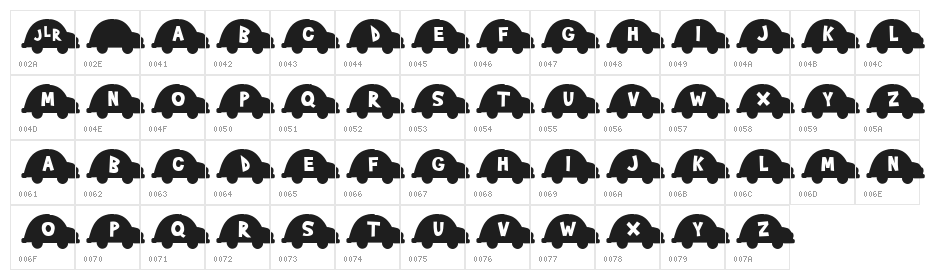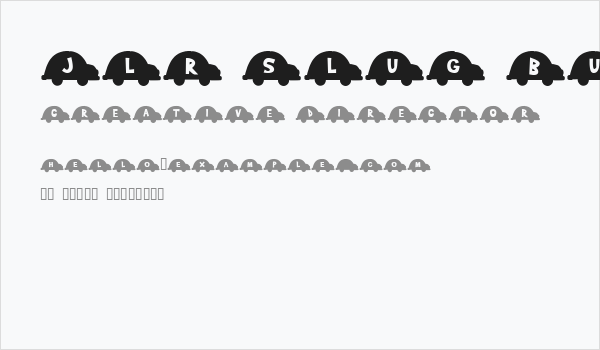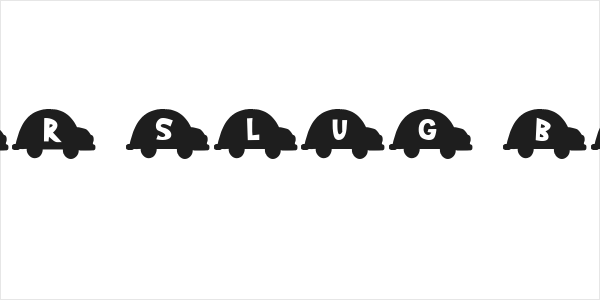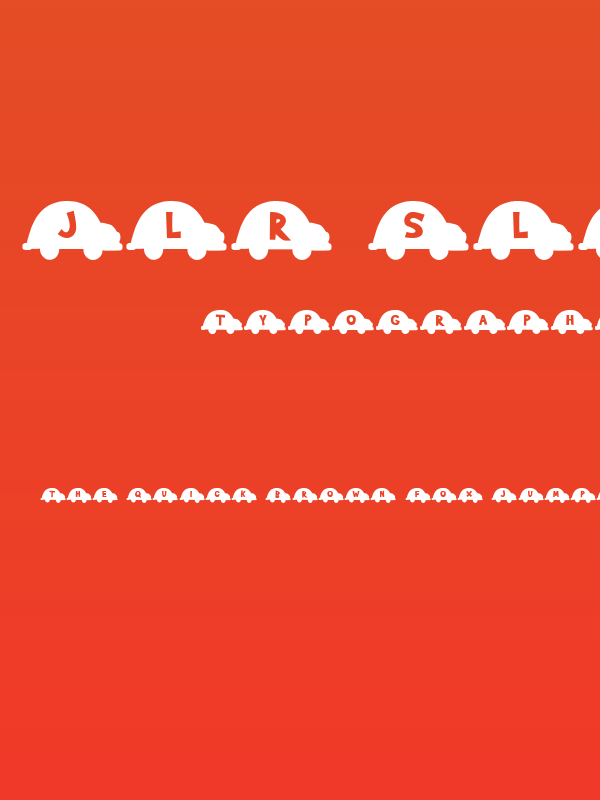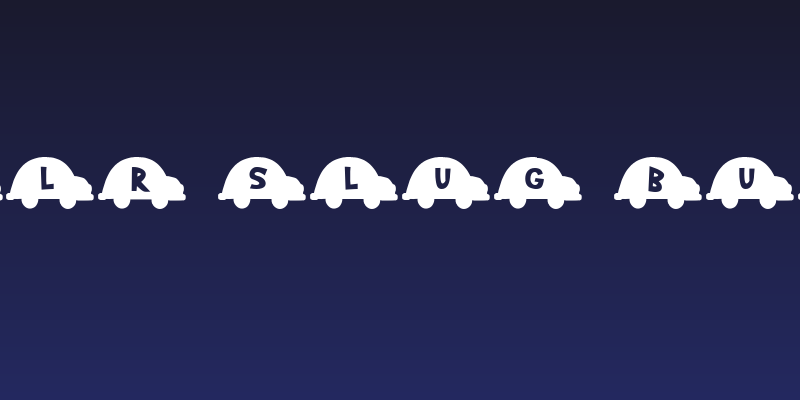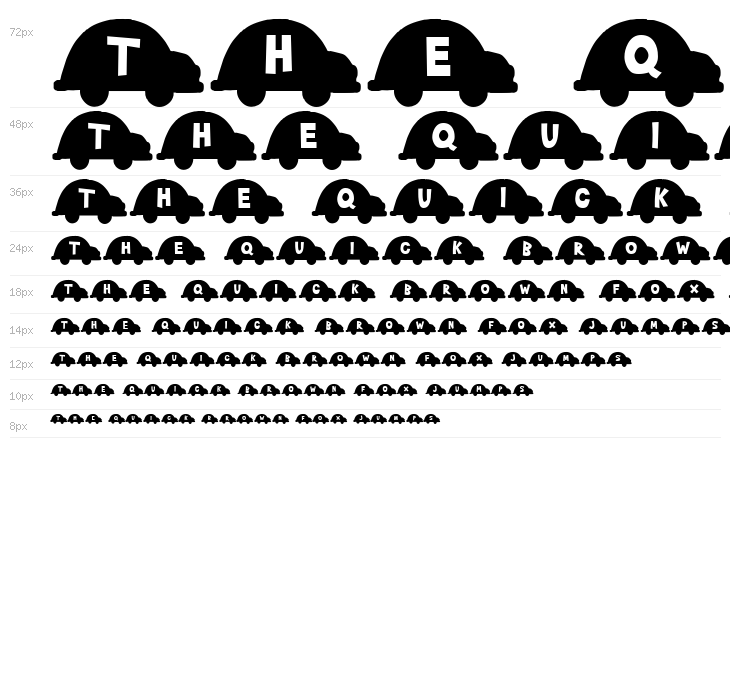
JLR Slug Bug Font
JLR Slug Bug Description
This playful and whimsical font features each letter encased within a stylized car silhouette, reminiscent of a classic slug bug or beetle car. The design is bold and eye-catching, with each character maintaining a consistent shape that adds a unique charm. The letters are uppercase, with a uniform width and height, creating a cohesive look across the alphabet. The font's novelty design makes it ideal for projects that require a fun and lighthearted touch, such as children's books, playful branding, or themed event materials. Its distinctive style ensures that it stands out, making it memorable and engaging.
| Overall Style | Whimsical |
| Use Case | Logos, Headlines, Themed Events |
| Proposed Projects | Ideal for children's books, playful branding, themed events, or any project needing a whimsical touch. |